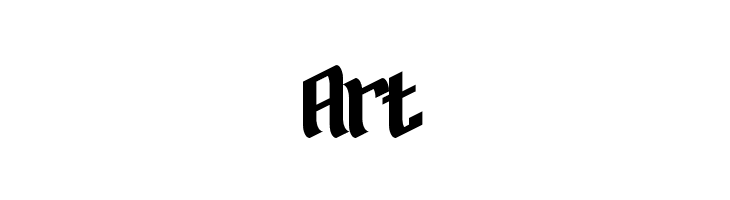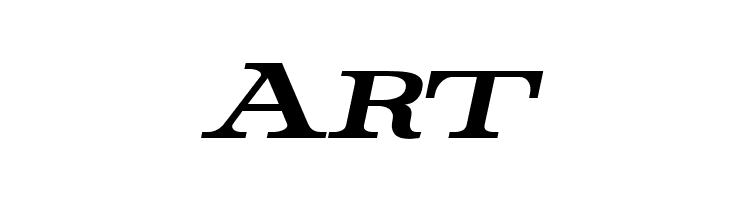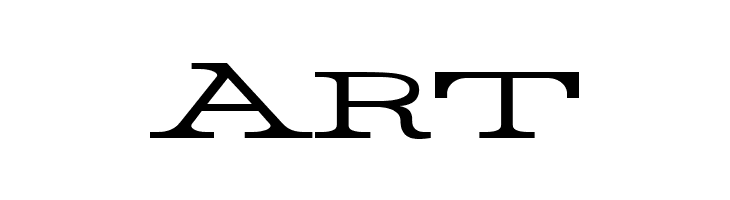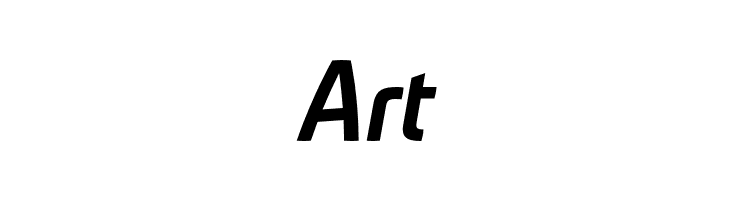
A bold, italic font with a modern and dynamic style.
A bold, modern font with strong geometric shapes and clear readability.
A bold, modern font with thick strokes and a strong presence.
A bold, modern sans-serif font with uniform weight and clear readability.
A bold, italicized font with high contrast and dynamic presence.
An ultra-expanded, light serif font with a modern and bold aesthetic.
A modern, condensed sans-serif font with bold, uniform strokes.
A modern, slightly italicized font with a sleek and professional appearance.
A modern, bold, and condensed font with a clean and assertive design.